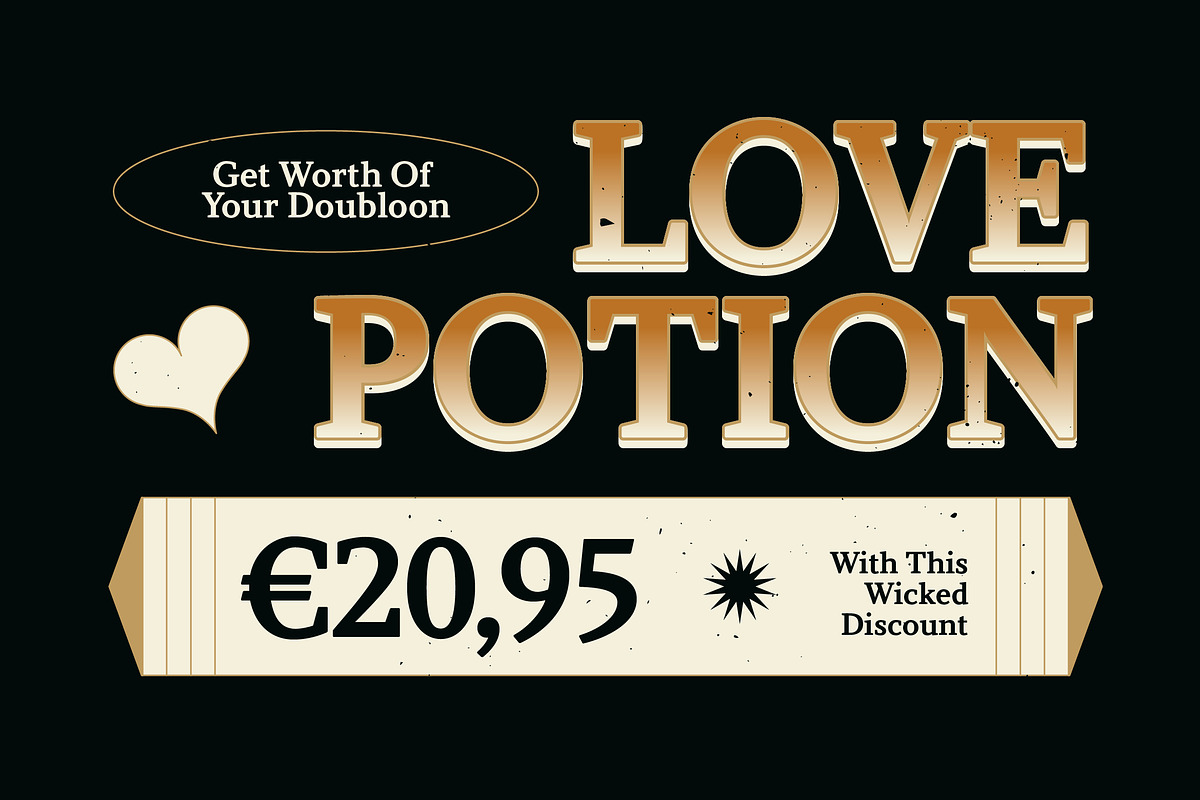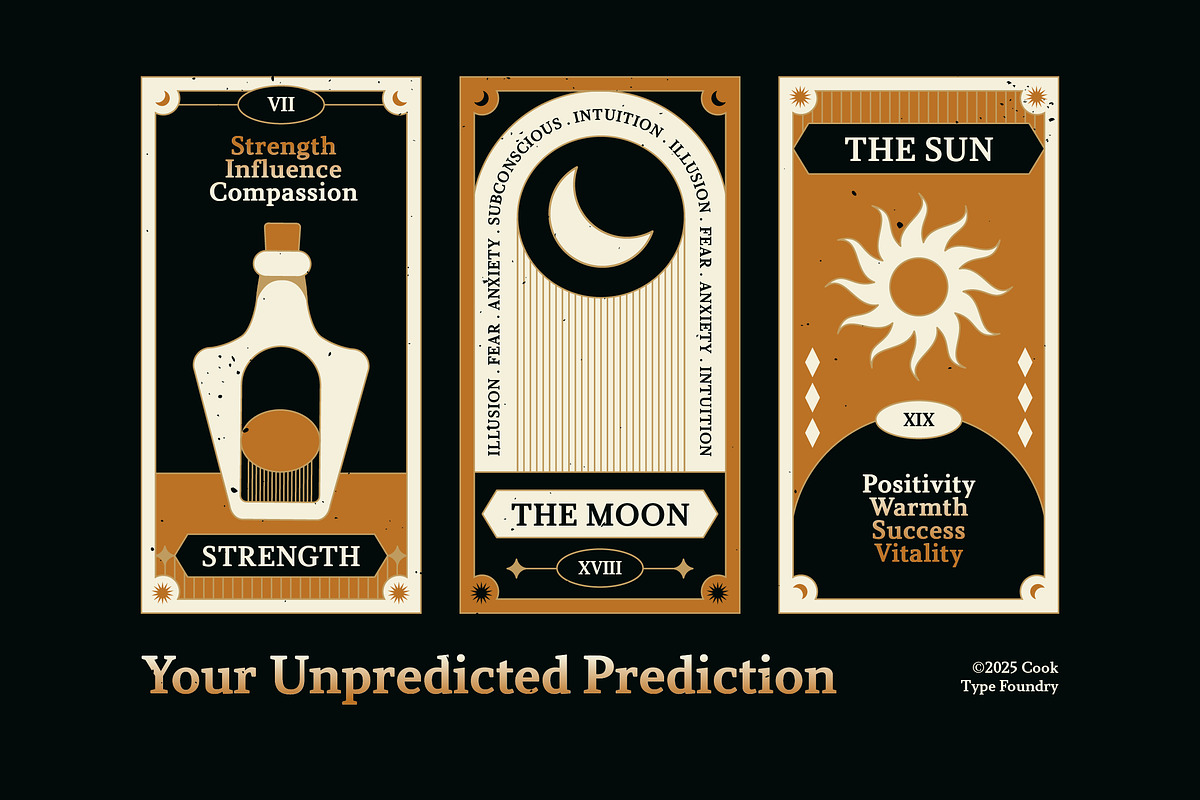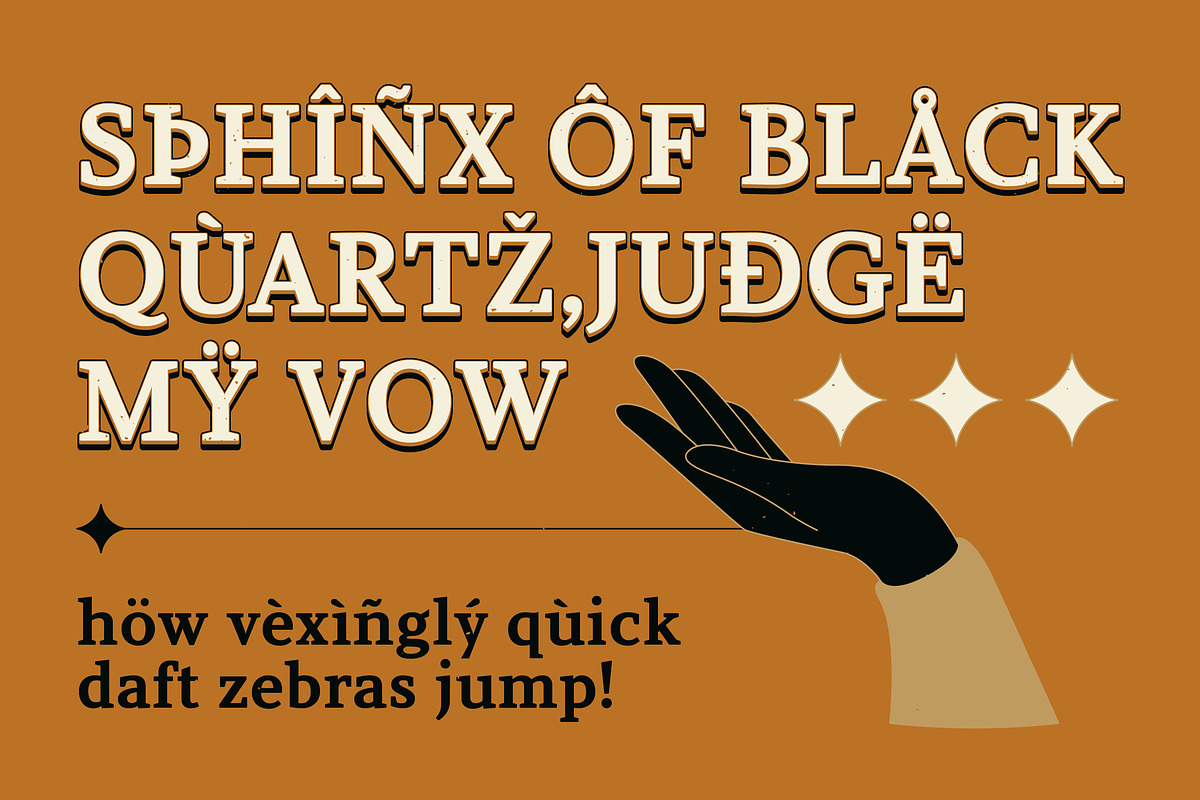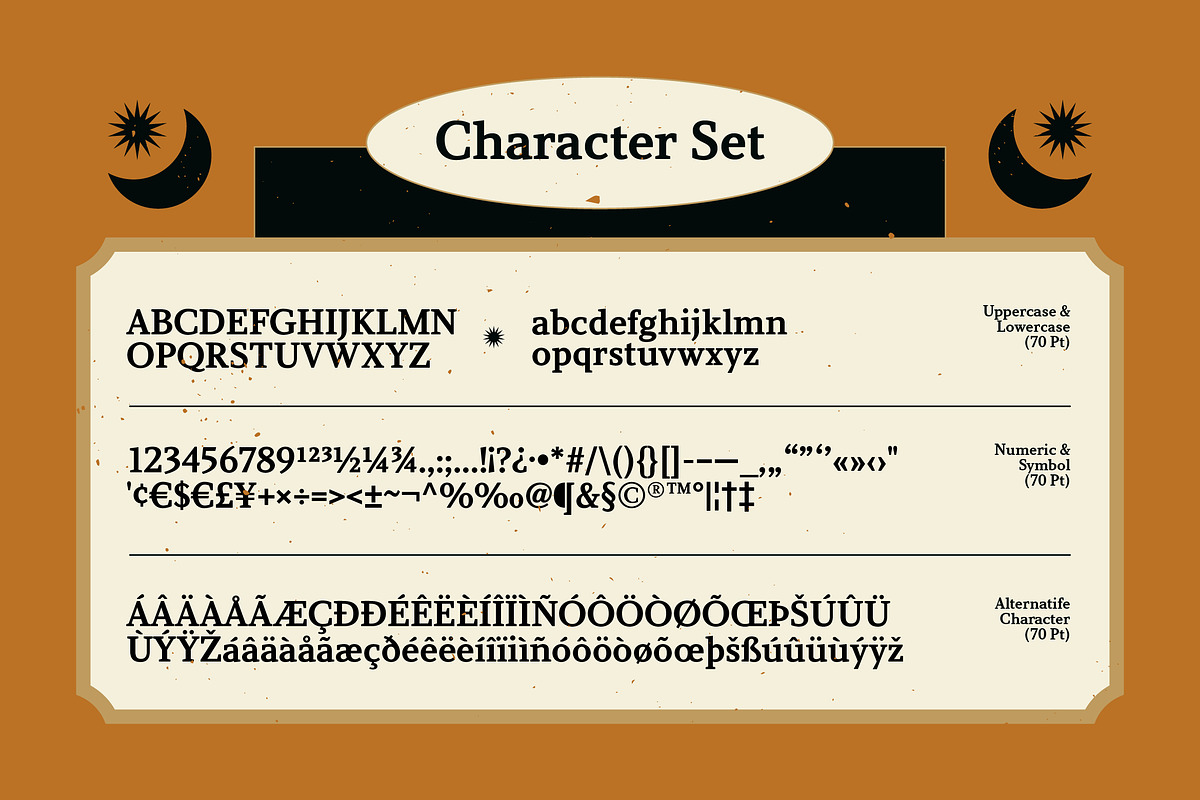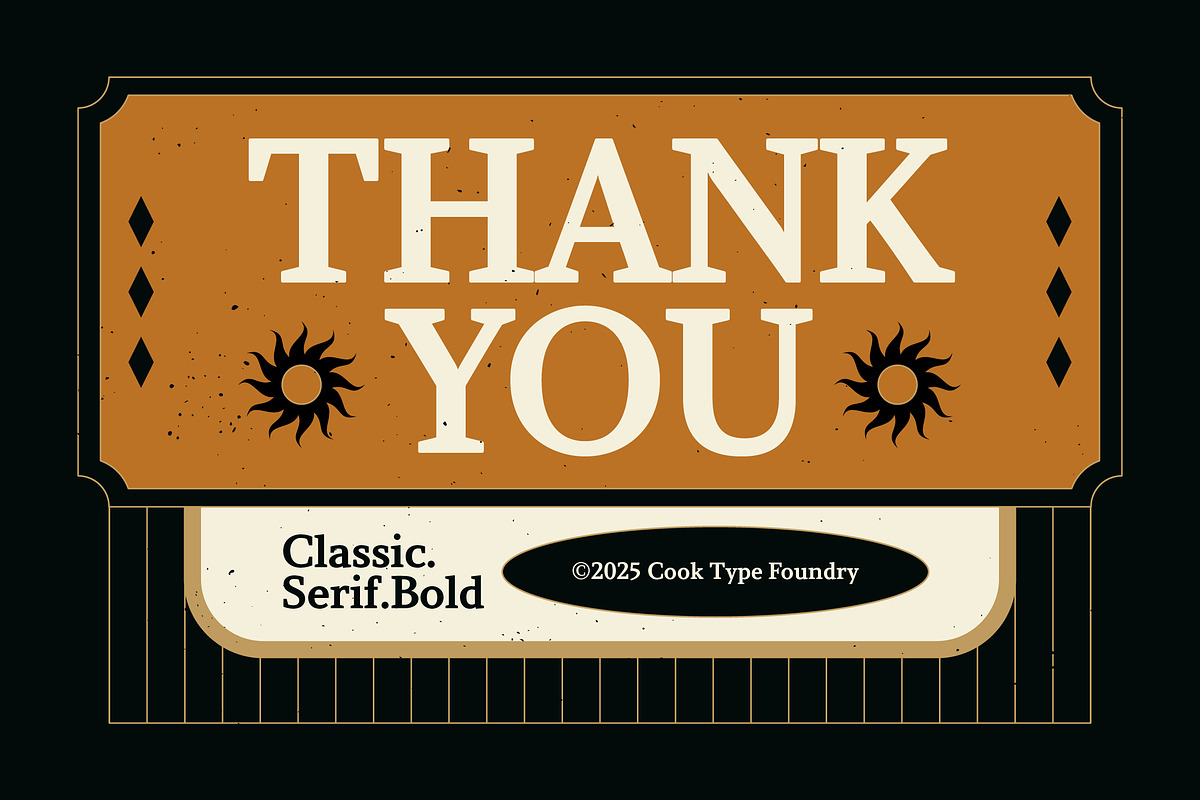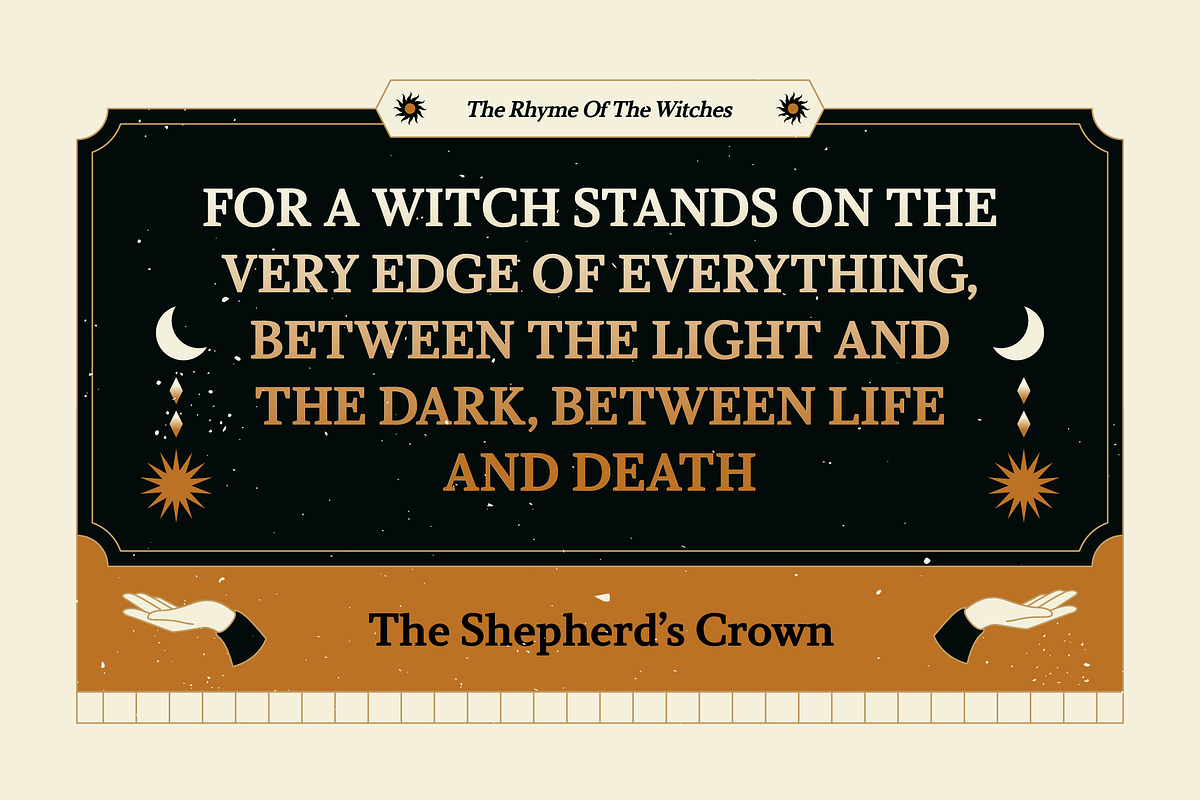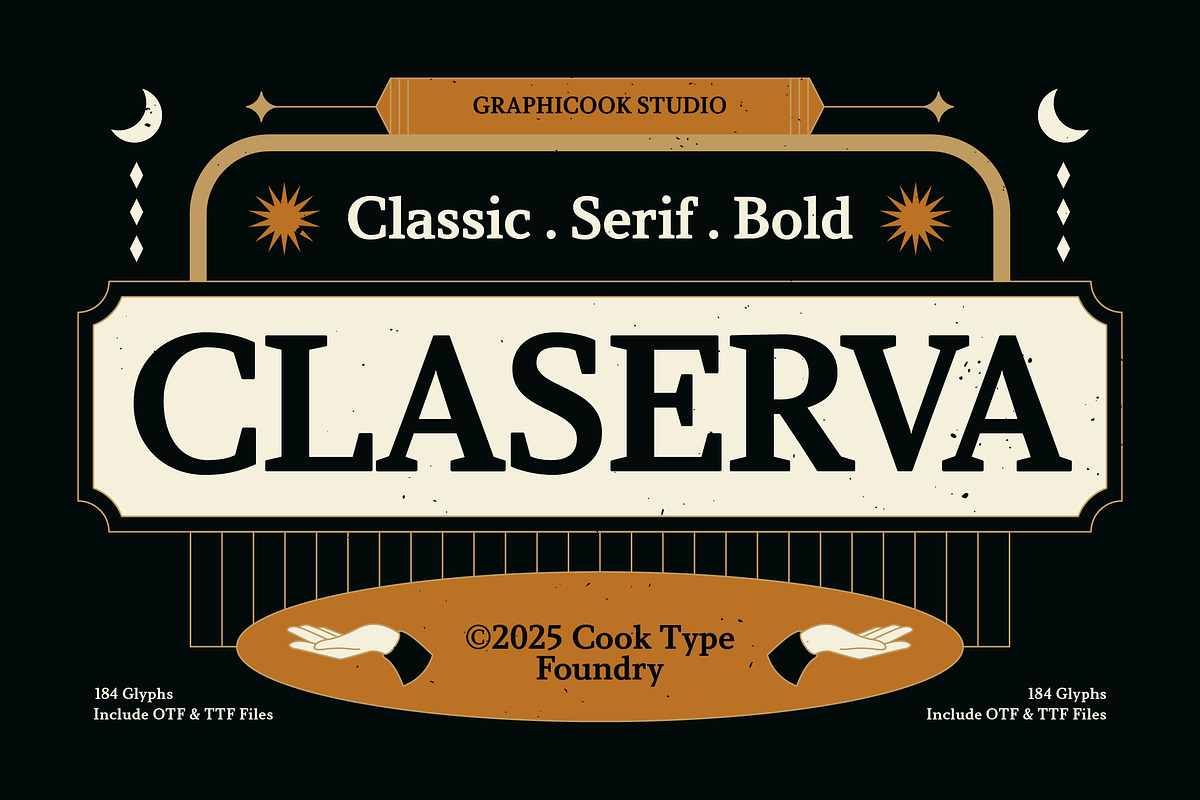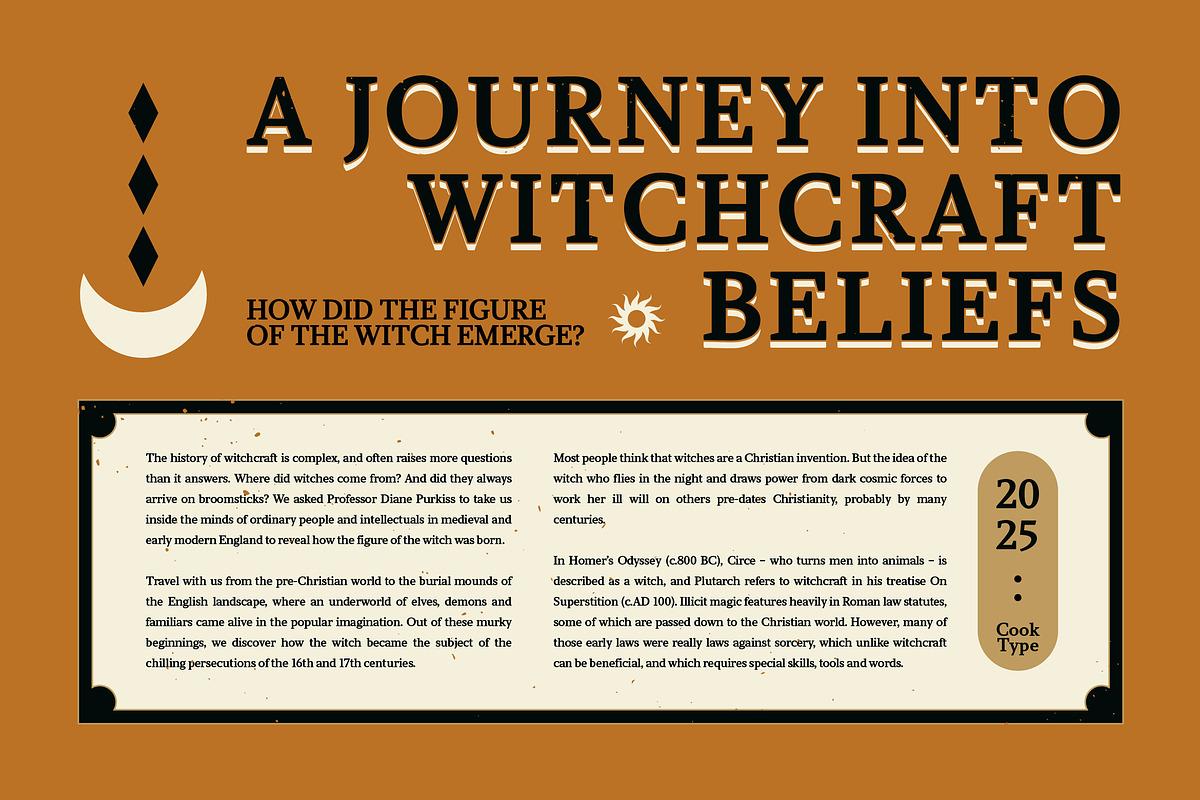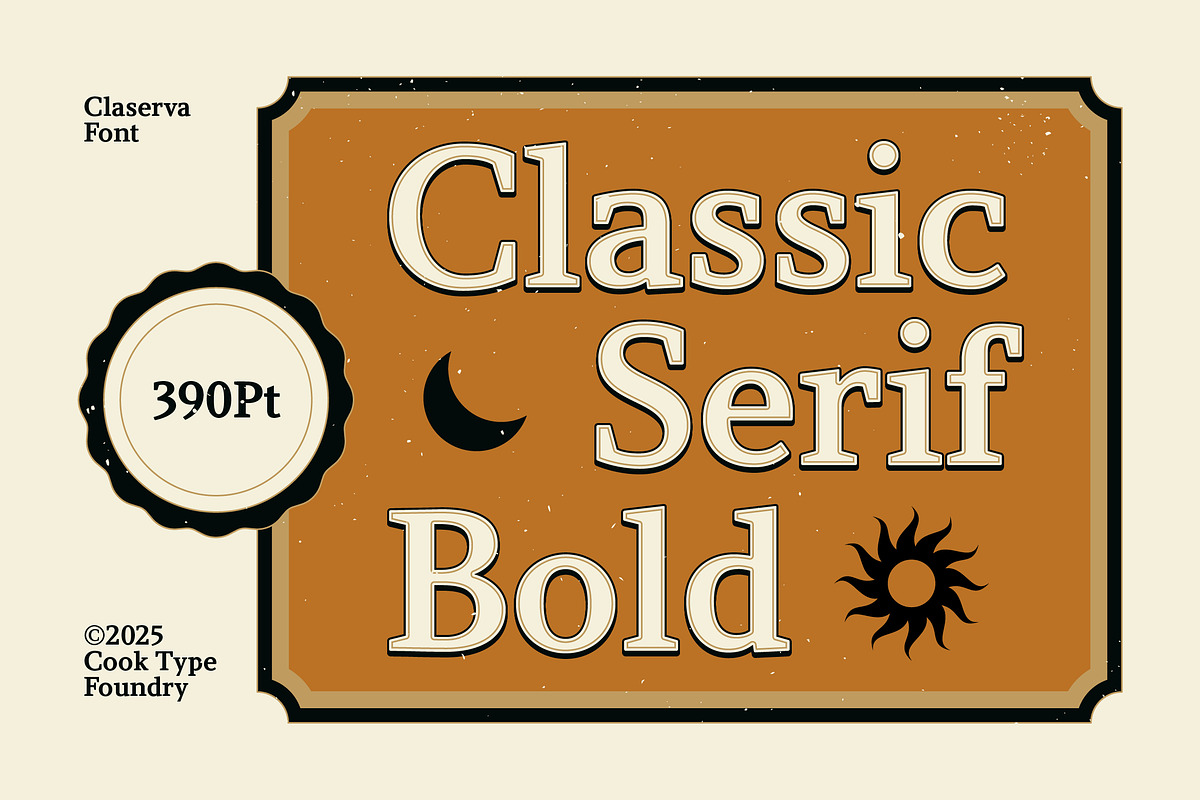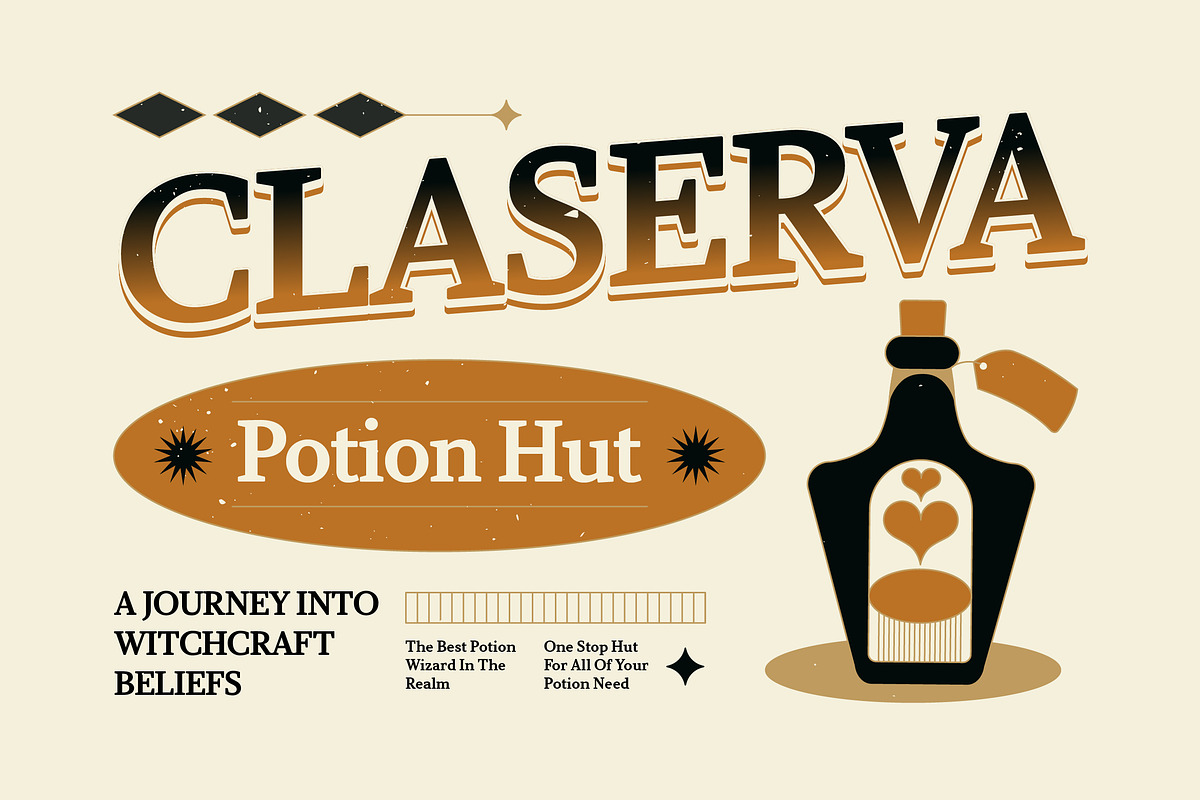
Claserva
Claserva is a serif font wrapped in a classic vintage style, exuding elegance, authority, and sophistication. Great for headlines, logos, or any design with a vintage theme.
Claserva is perfect for headlines, logotypes, magazines, packaging, quotes, movies, games, cover albums, book covers, and flyers, it's a perfect solution for creating eye-catching designs that stand out in any context.